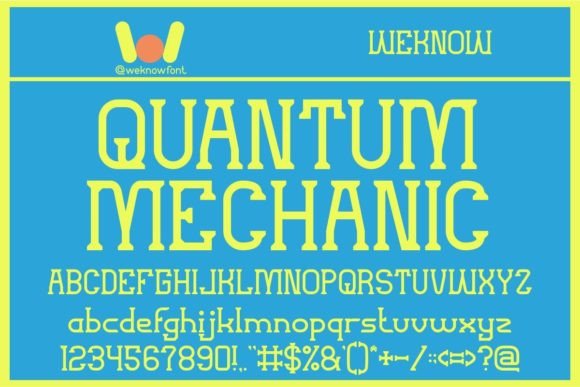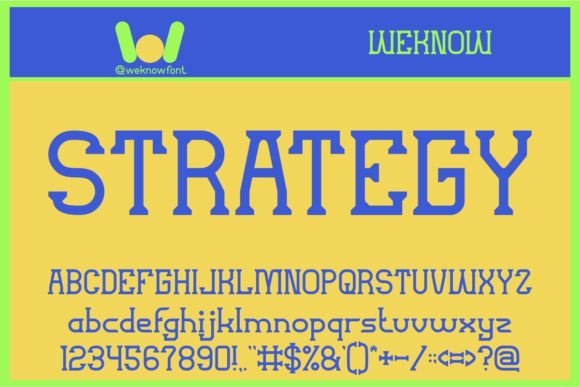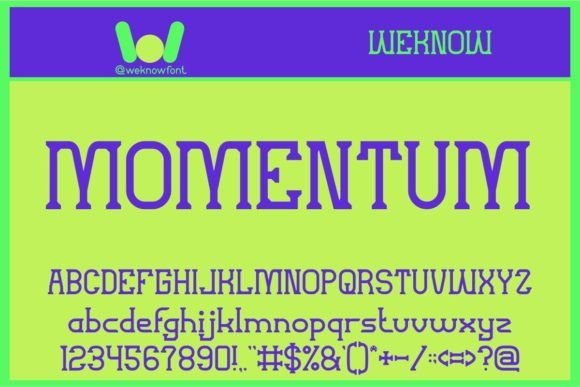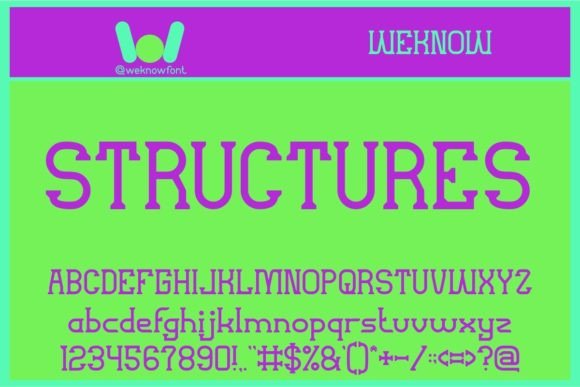
The Birth of a Masterpiece: Greatest of All Time Font
Do you remember that moment when a font just clicked with your design idea, and everything fell into place? For designers, it’s a feeling like no other. And for those who have discovered the Greatest of All Time Font, that moment is a reality. This funky and cool serif font is a game-changer, with its distinct and well-balanced letters that make it a true masterpiece.
Whether you’re working on a bold campaign, a trendy social media post, or a beautiful book cover, the Greatest of All Time Font is the perfect companion. Its incredibly versatile style makes it adaptable to any project, ensuring that your designs stand out from the crowd. As a designer, you know how valuable it is to have a font that can elevate your work and make it truly unforgettable.
Greatest of All Time Font Key Features
- Font Family: A custom-designed serif font, specifically crafted for the “Greatest of All Time” theme.
- Unique Characteristics: The font features a unique blend of vintage and modern elements, with subtle flair and flair-like accents, making it stand out from other serif fonts.
Greatest of All Time Font Review
I recently had the chance to work with the “Greatest of All Time Font” and I have mixed feelings about it. Let’s break it down.
- The font is indeed great at conveying a sense of grandeur and achievement. It’s perfect for sports teams, music artists, or anyone who wants to emphasize their status as the best.
- The font is highly customizable, allowing you to adjust the size, color, and even add some fancy effects to make it stand out.
- The font is widely supported across different devices and browsers, ensuring a consistent look and feel across the board.
- The font is quite overused, which can make it feel unoriginal or even cheesy. You’ll want to use it sparingly to avoid clichés.
- The font can be difficult to read in smaller sizes or when used for large blocks of text. It’s best suited for headings and titles.
- The font’s bold and dramatic style can be overwhelming if used excessively. Balance is key.
The “Greatest of All Time Font” is a solid choice for anyone who wants to make a statement. While it has its limitations, it’s a great option for specific use cases. Just be mindful of its potential drawbacks and use it wisely.
The Greatest of All Time Font is ideal for:
1. Sports-related designs, such as jerseys, posters, or social media graphics.
2. Music-related designs, such as album covers or concert posters.
3. Any design that requires a bold, eye-catching font.